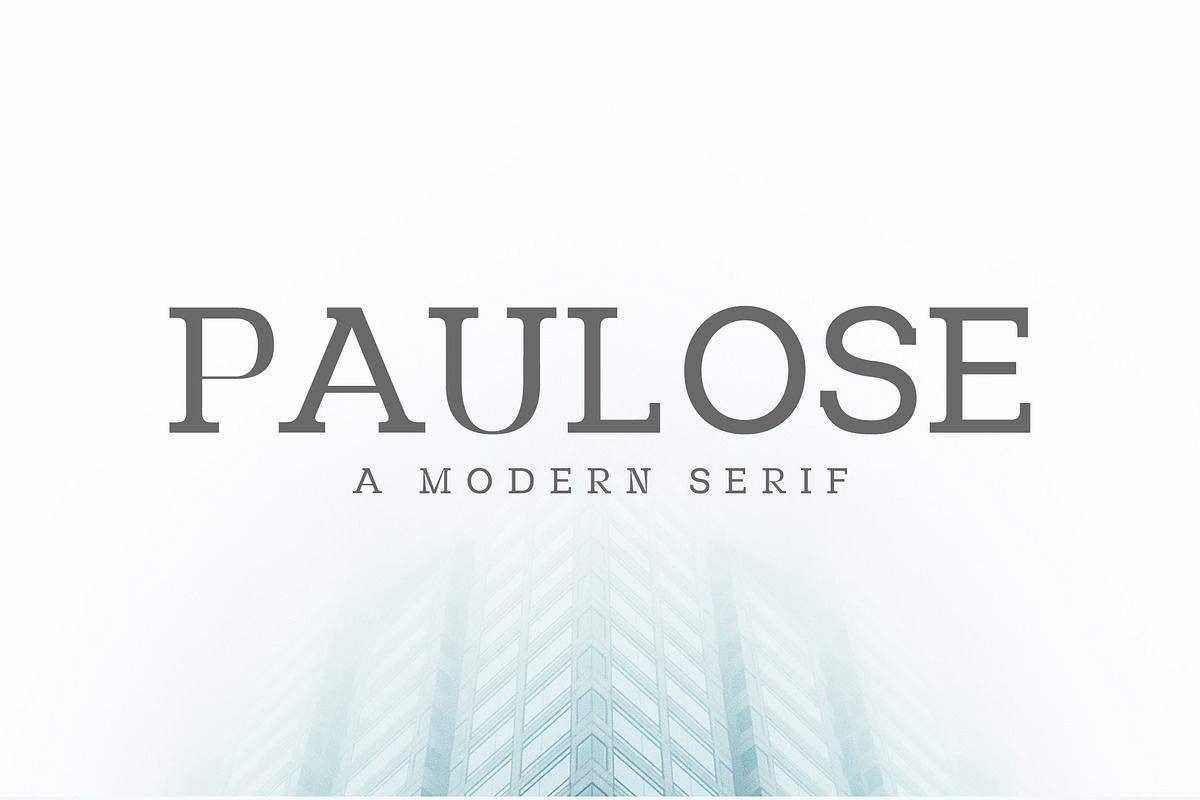
Paulose Modern Serif Font Family Free Download is a refined and contemporary typeface collection designed to bring elegance and clarity to any project. With its clean lines, subtle contrast, and stylish serif details, Paulose is ideal for branding, editorial design, websites, packaging, and luxury visual identities.
This modern serif family includes multiple weights, allowing designers to create balanced, professional typography across headers, body text, and callouts. Whether you're crafting a fashion magazine layout or a high-end logo, Paulose delivers timeless sophistication with a modern twist.